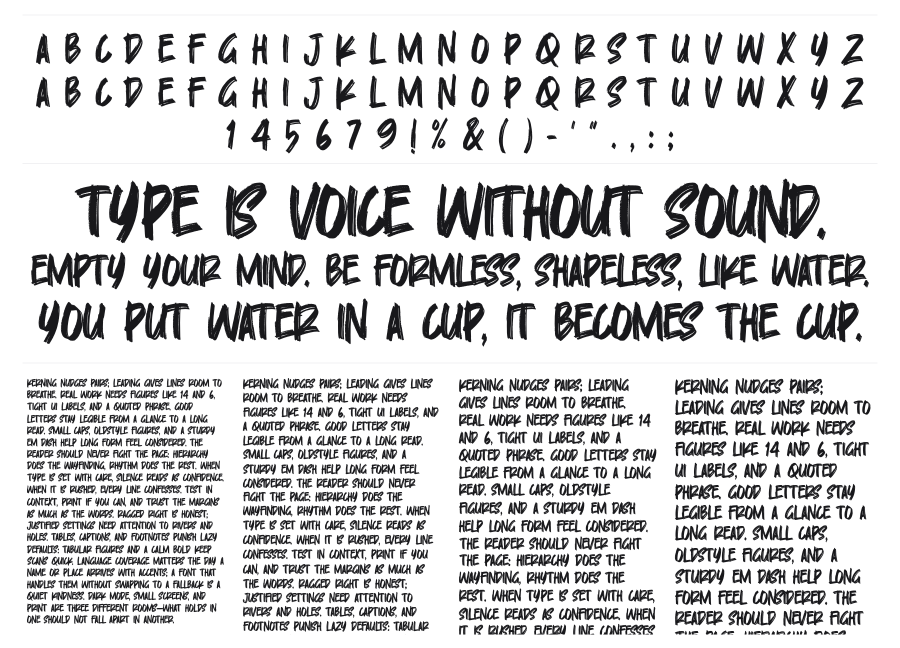
Skylarr Scott
Skylarr Scott is a bold, upright brush script with heavy ink strokes and raw bristle texture throughout. The rough, hand-painted quality gives it an urban, street-art energy that reads as both spontaneous and forceful. It works best large, where the textured details catch the eye.